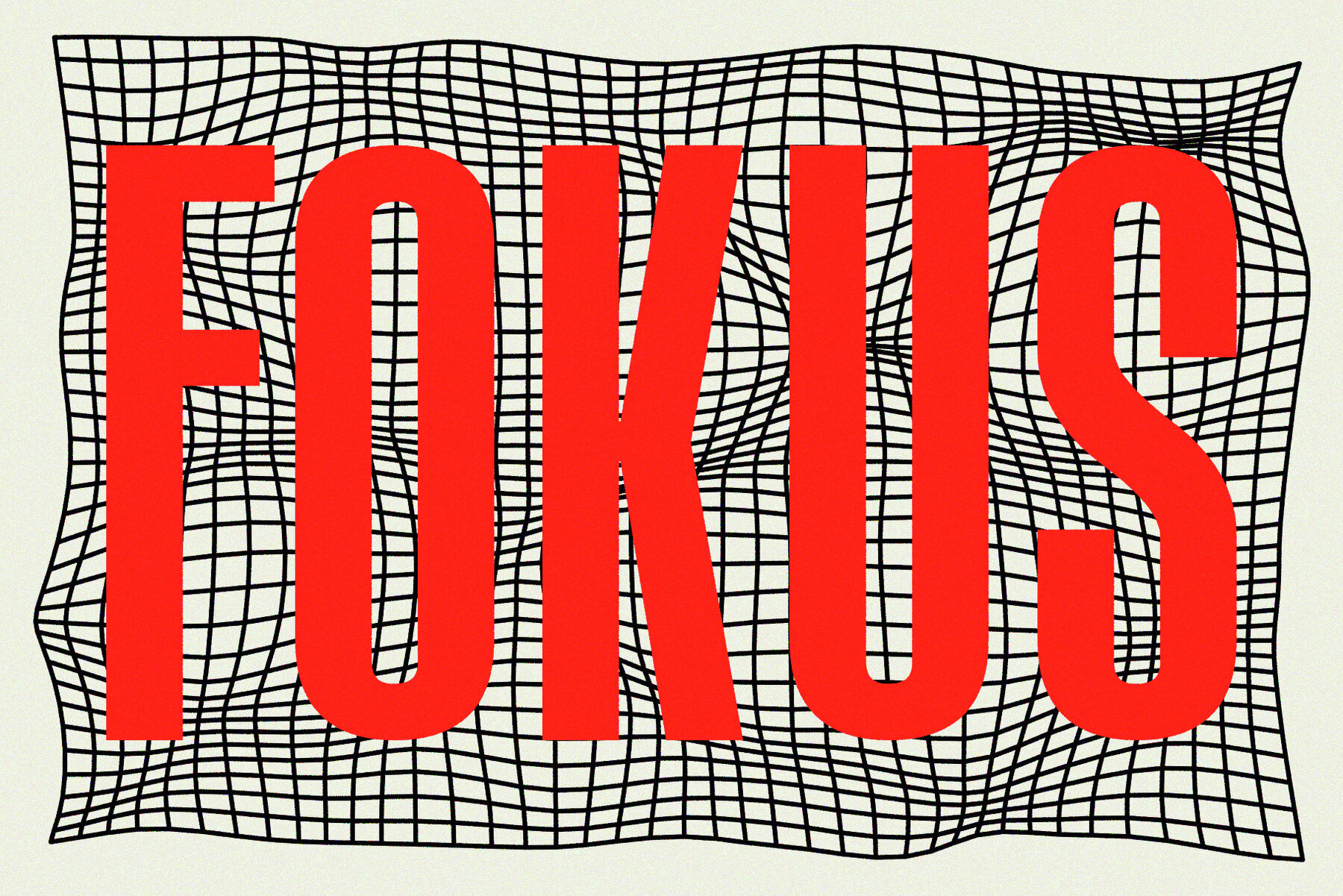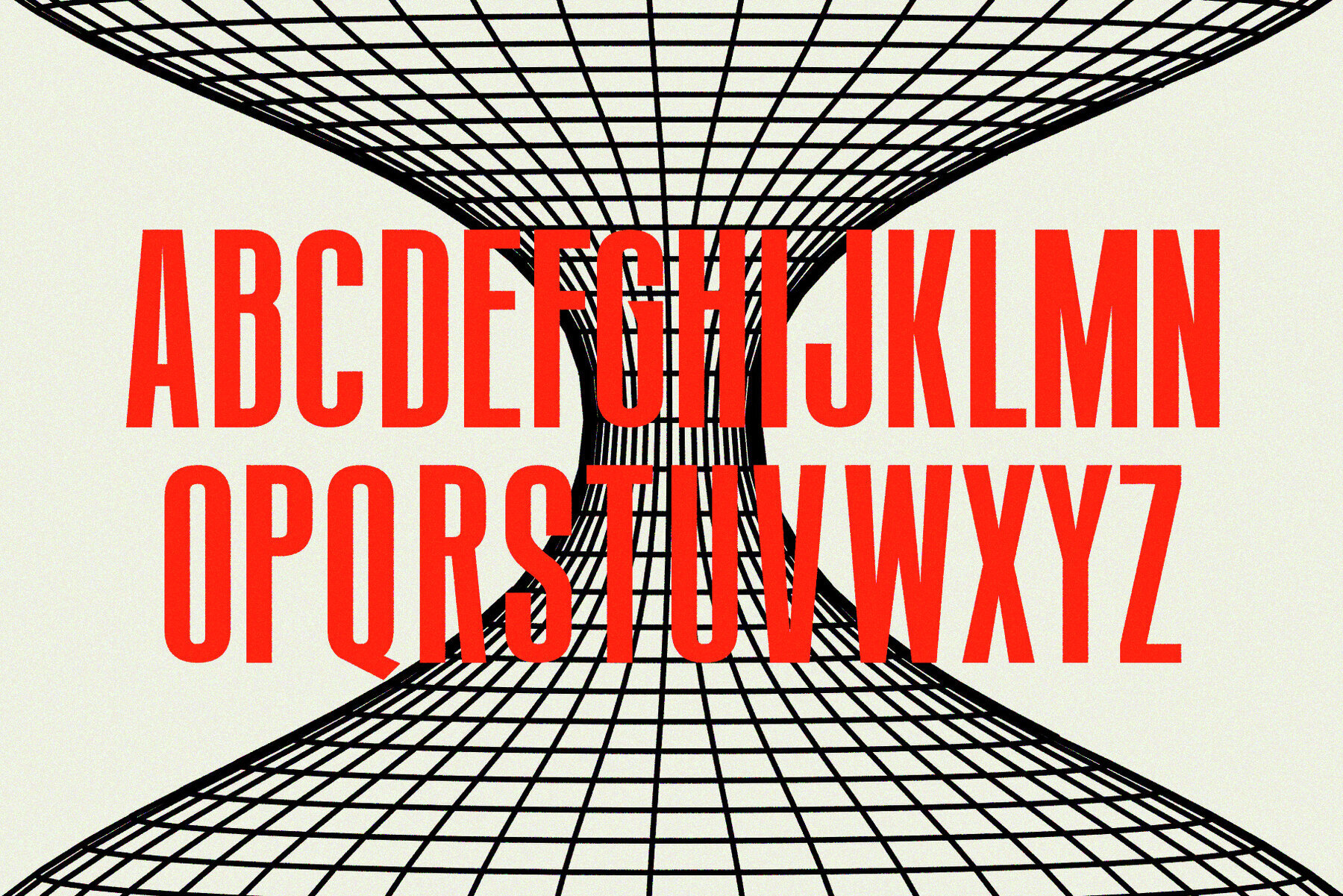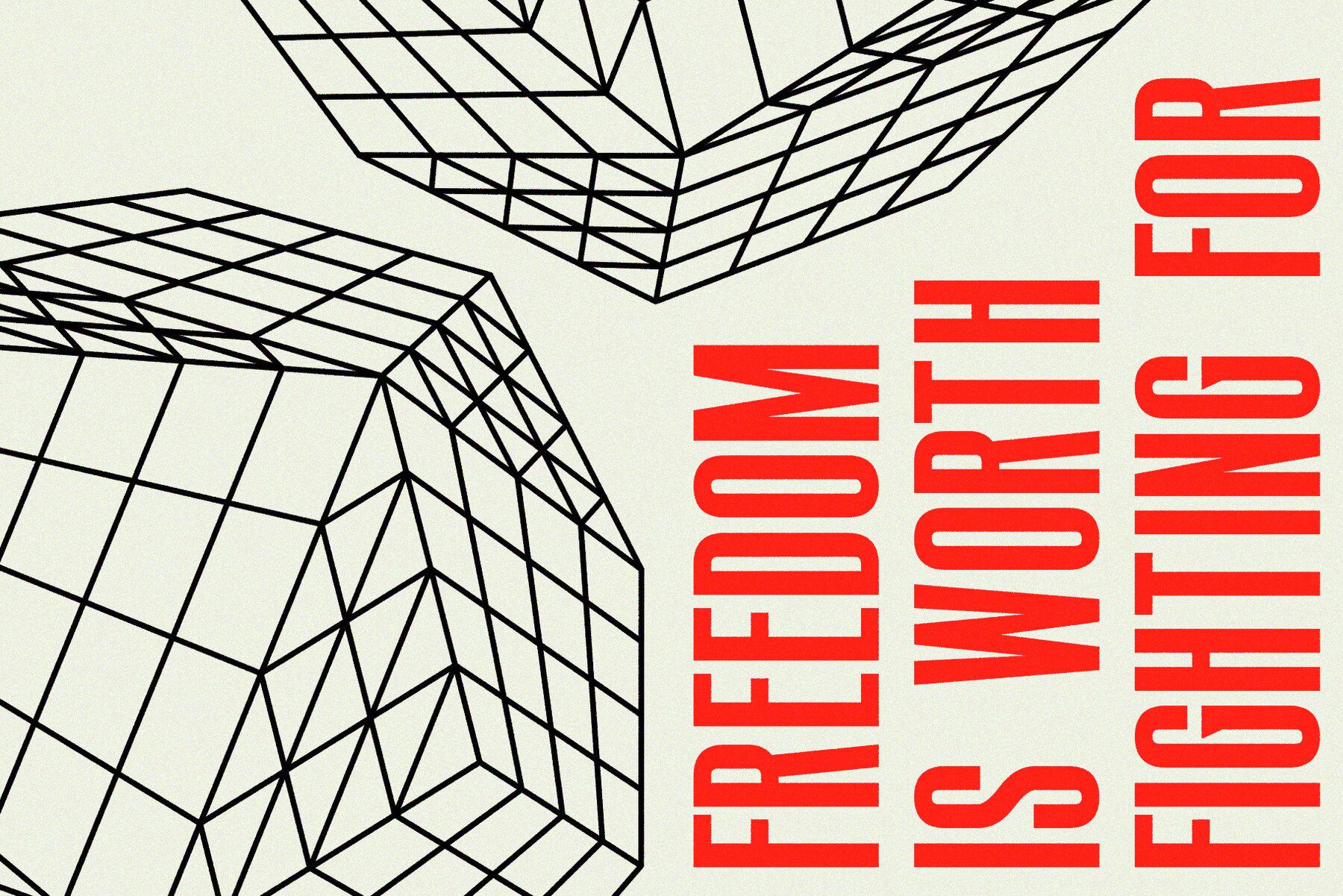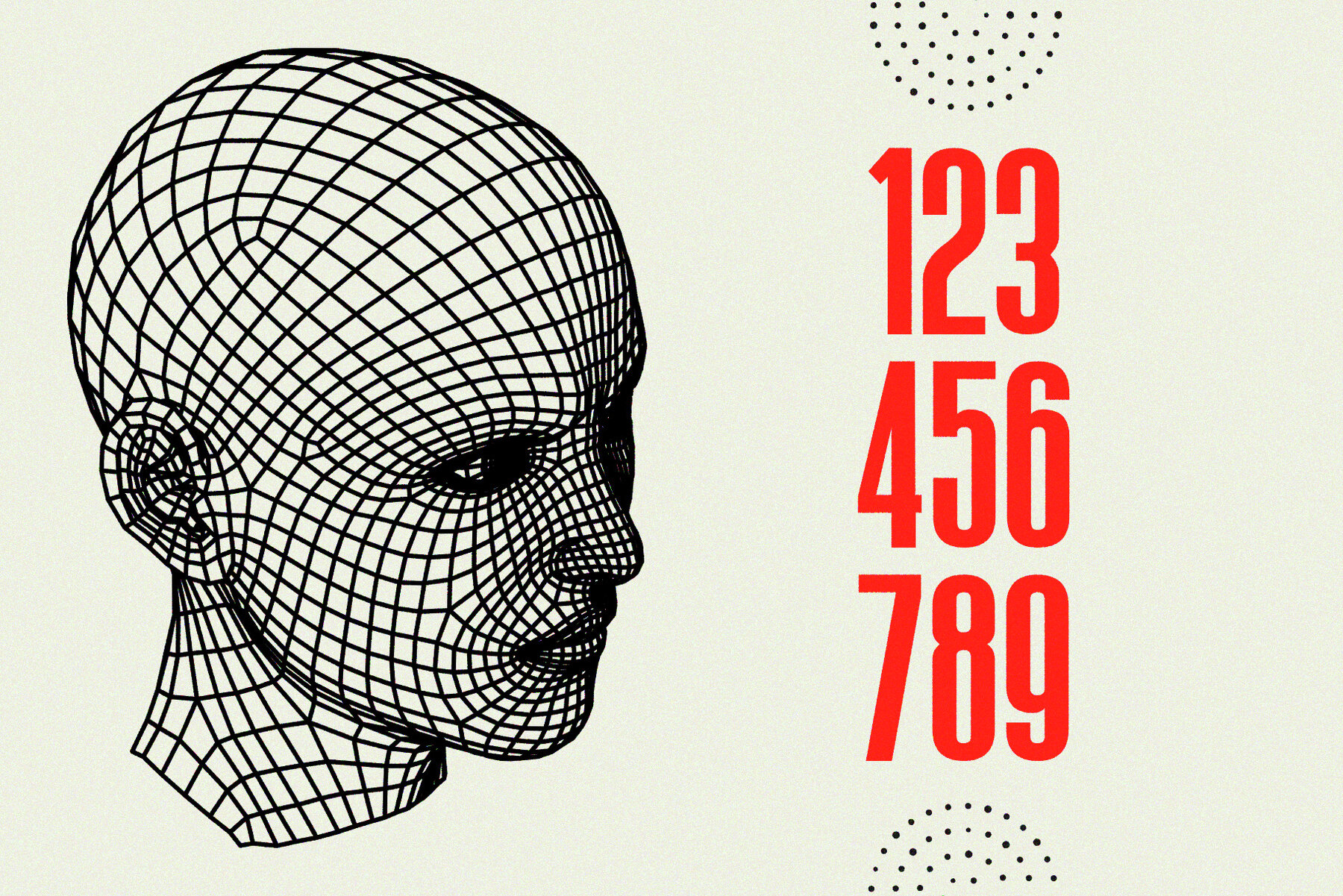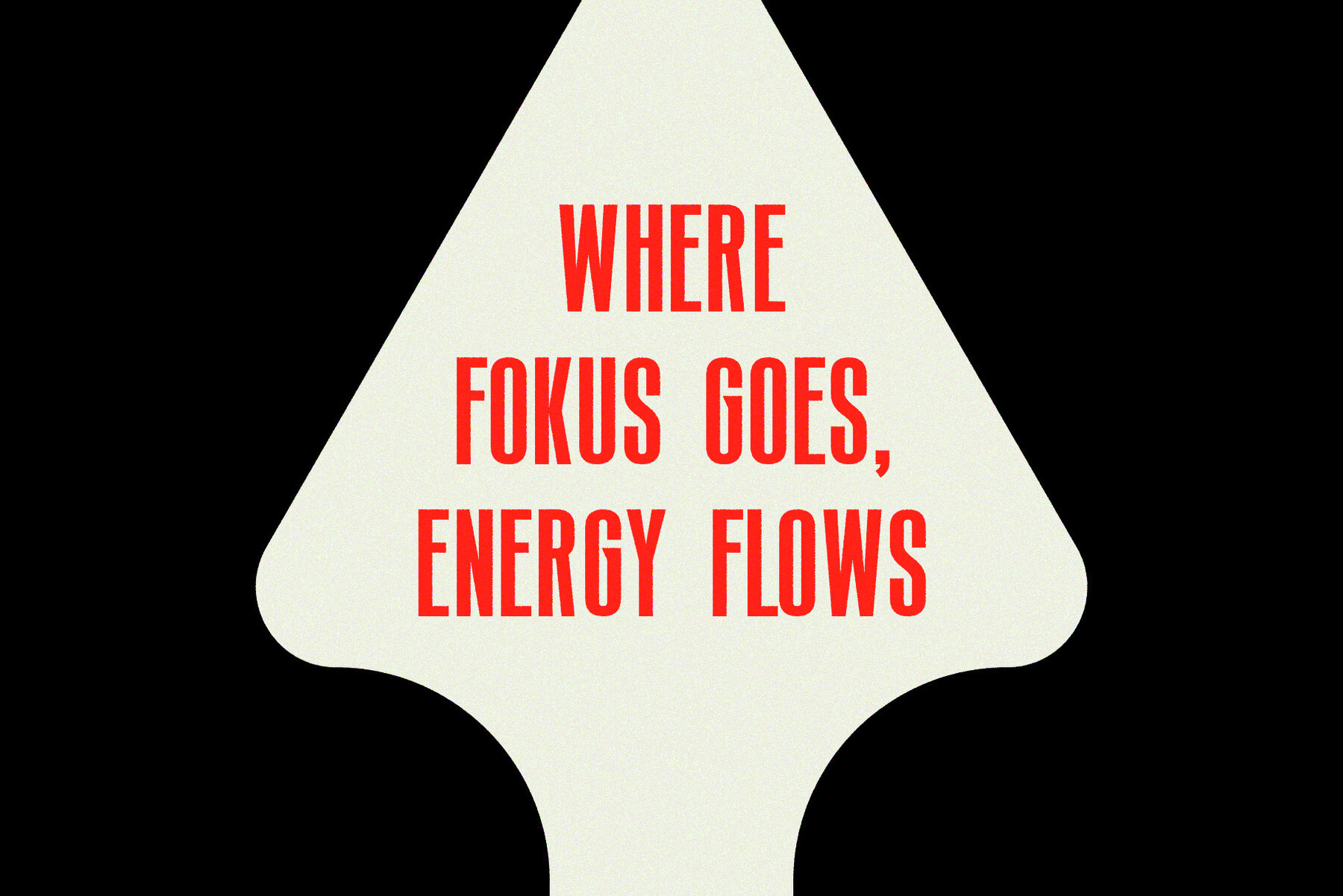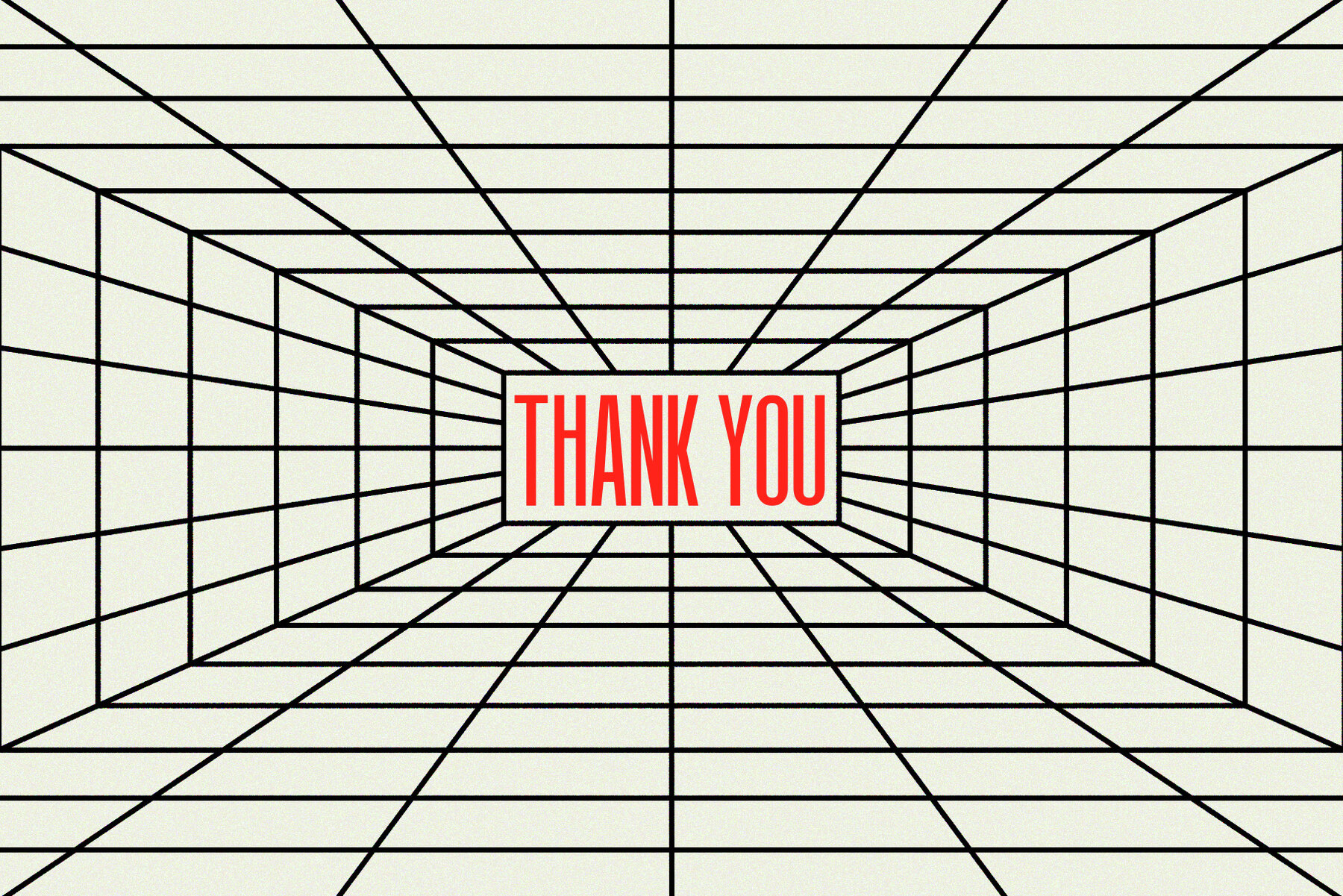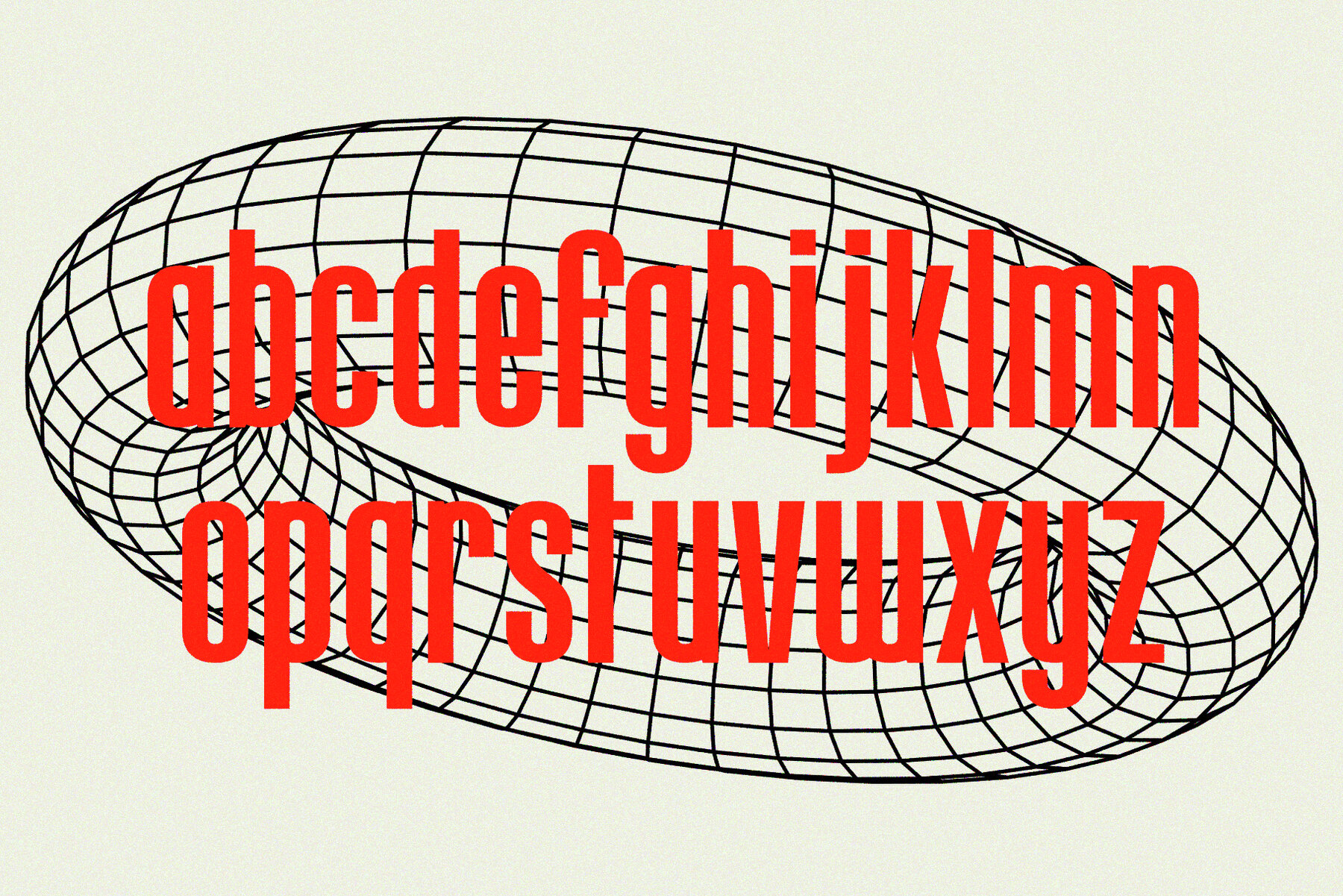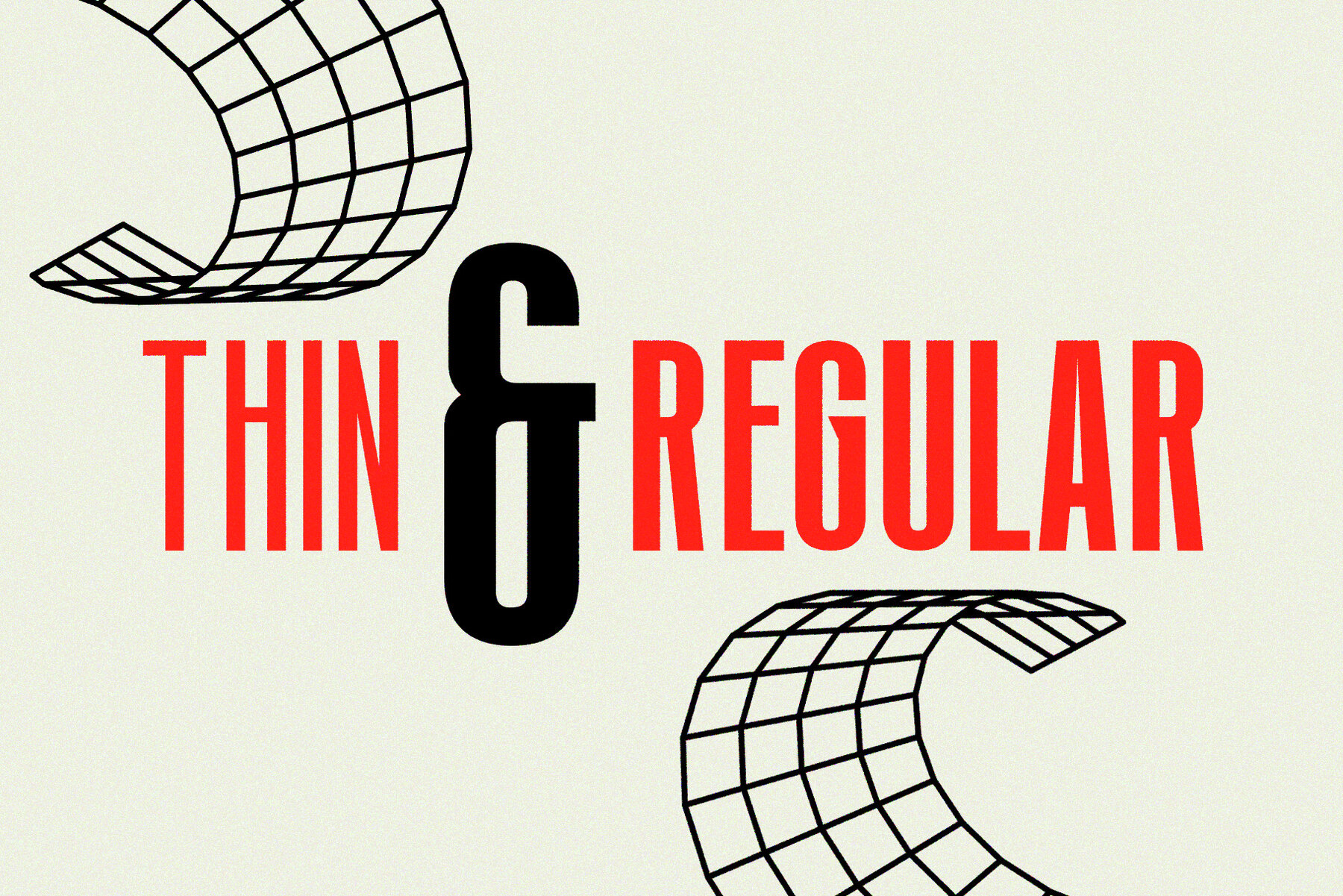
Fokus Font
Fokus was inspired by mid-century print design. The height of this condensed typeface automatically draws attention and can be utilized to create beautiful headlines, logos, quotes, posters, social media, headlines, magazine titles, clothing, large print formats, and more. You can easily pair it with scripts and bold sans serif fonts. Fokus comes in two versions, regular and thin, which makes it super versatile and fun to experiment with.